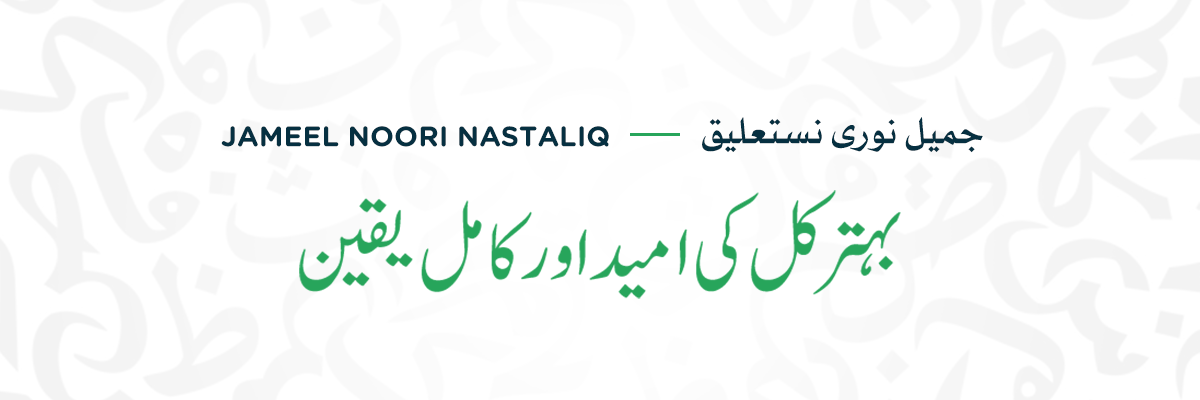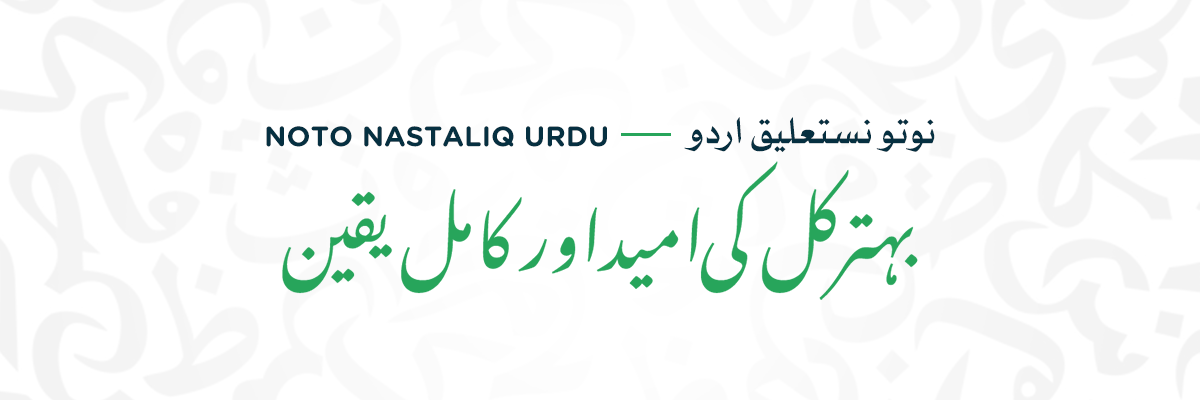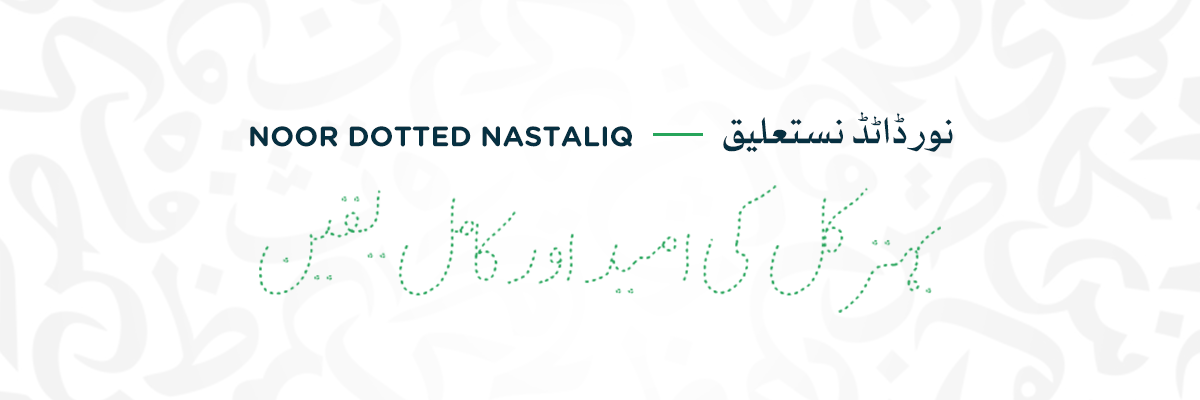
Creative Urdu fonts play an important role in graphic designing whether you are designing flyers, logos, posters, social media posts, and much more. For this purpose, people use different software for designing, for example, Adobe Photoshop, Adobe, Illustrator, Canva, etc. To design, the selection of right Urdu fonts for Canva is what makes your projects stand out from others. To improve the overall appearance of your designing projects, use those fonts which are creative as well as offers high legibility even at smaller resolutions.
To make it easy for you, we have created categories of some amazing Urdu fonts that you can download in Canva for improving the visual appearance of your projects. These categories are modern, Nastaliq, Stylish, Bold, and Handwriting Urdu Fonts. Here is a brief description of each category for your better understanding:
| Font Category | Description |
|---|---|
| Modern | Clean lines & geometric structures, often used for digital media and print. |
| Nastaliq | Traditional Urdu fonts with intricate and ornate designs, commonly used for formal and traditional writing. |
| Stylish | Urdu fonts with unique and creative designs, often used for calligraphy and artistic purposes. |
| Bold | Thick and prominent Urdu fonts designed for attention-capturing text in different applications. |
| Handwriting | Urdu fonts that copy handwritten text, often used for personal and informal writing. |
These fonts have a clean, contemporary look, making them perfect for digital designs and modern publications. Here are some of the modern Urdu fonts to use in your designing projects:
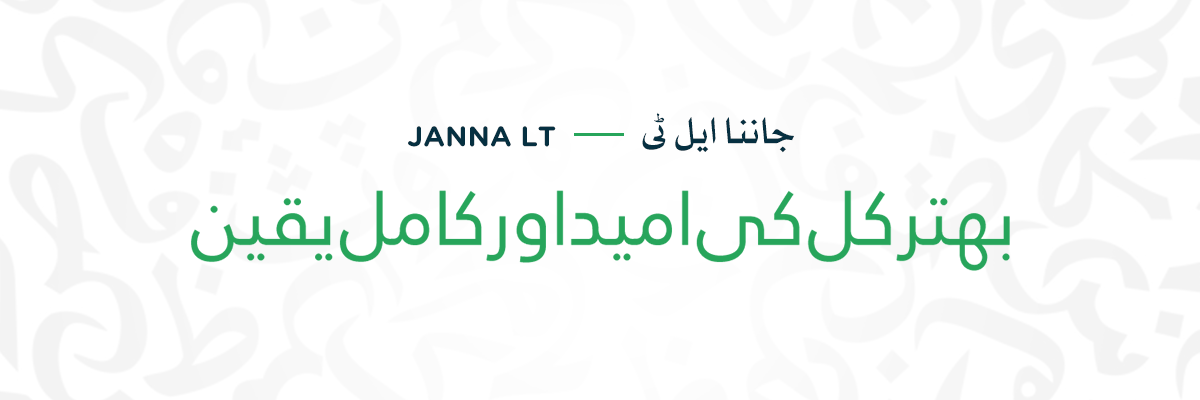
Janna LT is was designed by Nadine Chahine. It is an Arabic font which combines different calligraphic styles like Kufi, Naskh, and Ruqaa. With strong strokes and well-aligned characters, it is a bold font. The overall appearance of this font makes it appropriate for branding, signage, advertising, and titles. Due to the wide spaces between its letterforms, it gives a modern touch to your designing projects. Moreover, the font is owned by Monotype Imaging Inc. and can support Persian, Arabic, and Urdu languages.
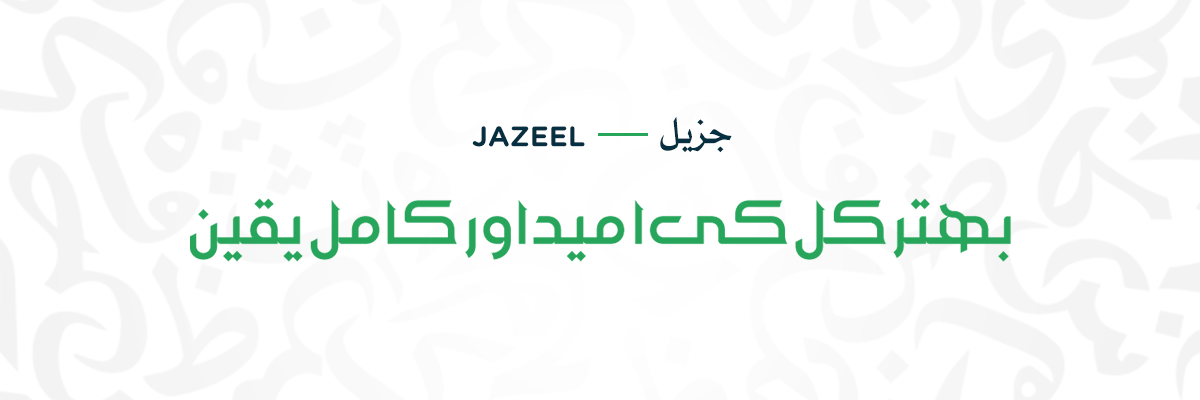
Jazeel was designed in 2014 by Mostafa El Abasiry. It is an Arabic and bold font which gives a contemporary touch with geometric appearance and clear letterforms. The clean structure of this font guarantees readability even in lower resolution. Its unique curves particularly in letters like “ق”, and “ن” provides the font an elegant look. The font is accessible in bold and regular weights and its well-spaced letters as well as smooth curves allows for optimal reading. You can also explore more fonts like this in 12 Best Urdu Kufic Fonts for designing beautiful Kufic-inspired art and calligraphy. This guide and font selection will help you choose the best font for your design projects.
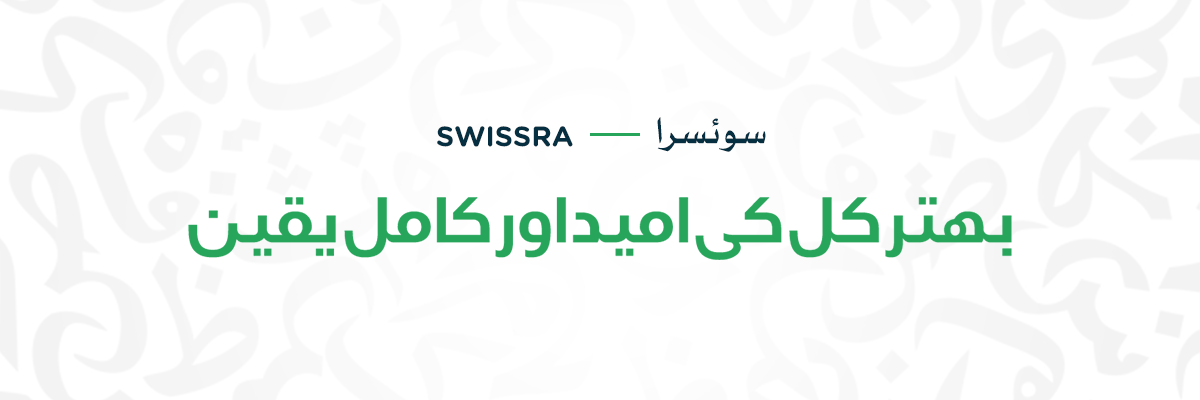
Swissra was designed in 2014 by Ali Almasri. It is also an Arabic font that takes inspiration from Swiss design. With pointy corners and neutral appearance, it is a very versatile font. The font also has a geometric appearance and provides good legibility. It is available in around eight font weights ranging from bold to light and permits for flexibility in many designing projects like posters, logos, and advertisements.
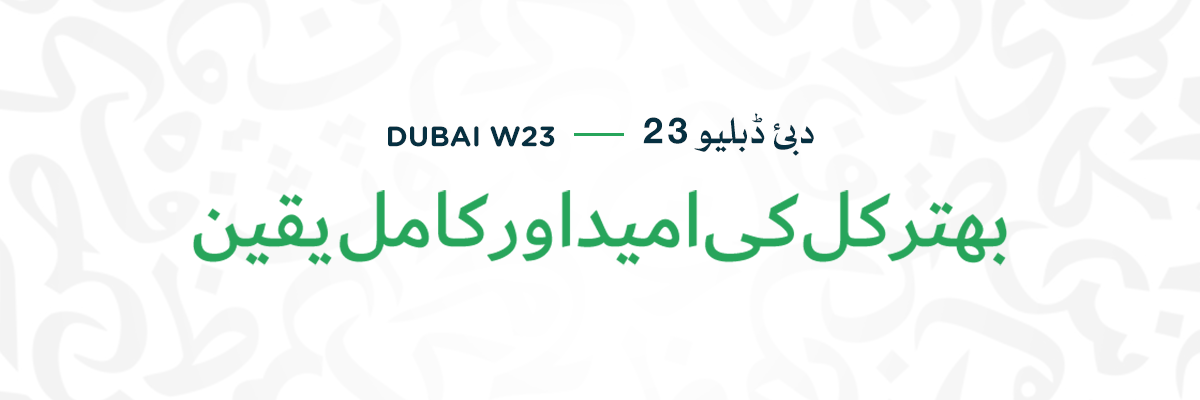
Dubai W23 was created by Monotype Design Studio and is available in four weight options (regular, light, medium, & bold). The overall font has a clean and simple design that makes your projects more professional without being fancy. It has a straight and horizontal base line with the letters arranged in a proper symmetry. With clear and mostly lines, it is easy to read even at lower resolutions. You can use this font for titles, body text, as well as formal writing.
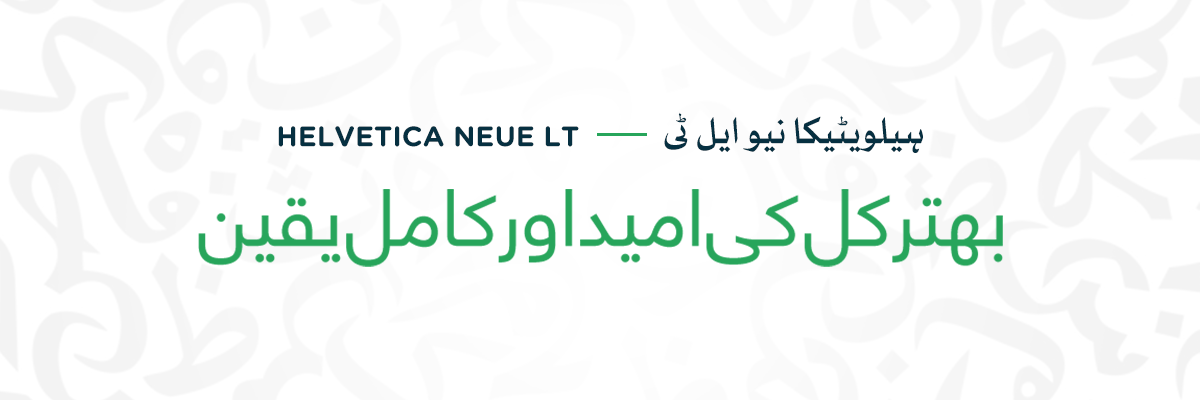
Helvetica Neue LT was created by. Available in three different weights, it is a clean as well as modern sans-serif font. The font has a simple design with even stroke thickness which provides it high readability and professional appearance. It does not have decorative elements such as curves or pointy corners, creating a sophisticated and clear feel for your projects. Due to its clean design, you can use it in body text, titles, posters, as well as branding.
Inspired by traditional calligraphy, these fonts have a flowing, elegant style, ideal for formal writing and cultural projects. The list of some of the best Nastaliq Urdu fonts for Canva are as follows:
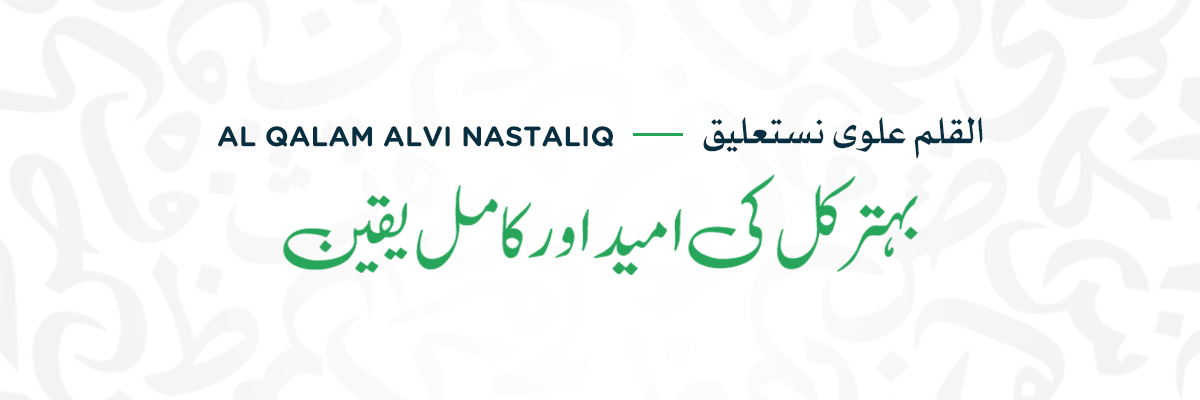
Al Qalam Alvi Nastaliq combines modernity with tradition beautifully. The font is inspired by Nastaliq script with graceful curves and little cursive corners for an elegant appearance. It has a moderate thickness and its contrasting strokes guarantee impact. With wide edges and balanced spacing, it provides maximum readability. Supporting Latin, Arabic, and Greek language, you can use it for posters, social media, and also Quran writing.